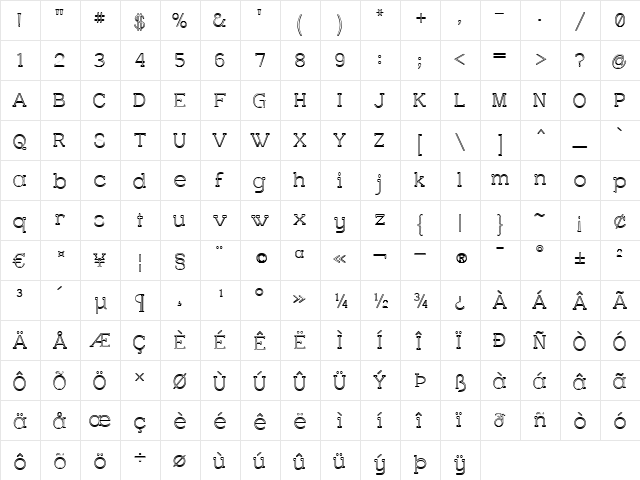
Charrington Outer Regular Font Preview
Charrington Outer Regular
Charrington Outer Regular Font Details
| Designer | Graham Meade |
Design Context for Charrington Outer Typeface
Charrington Outer offers clean, dependable letterforms without strong stylistic allegiance, making it a practical choice for designers who need flexibility.